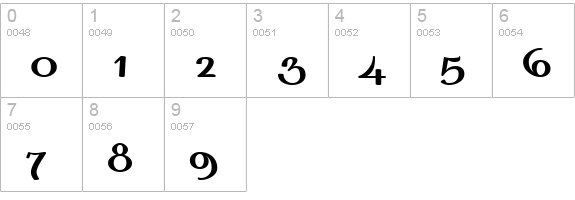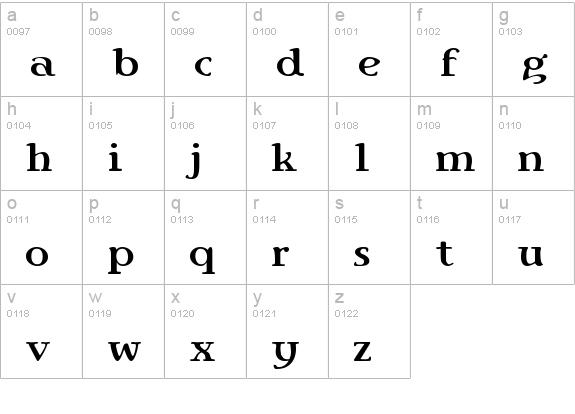
Ingriana Bold is a strong, high-contrast variant in the Ingriana typeface family \xE2\x80\x94 well suited to headlines, attention-grabbing titles, and strong calls-to-action.
Introducing Ingriana Bold, a stunning and sophisticated font that exudes timeless elegance and a touch of modernity. This font is perfect for adding a bold and impactful statement to your designs, whether it be a logo, branding materials, invitations, or any other creative project. With its clean lines and strong presence, Ingriana Bold commands attention and captivates the eye. Its thick and well-defined strokes give each letter a commanding presence, making it ideal for headlines and titles that need to make a lasting impression. What sets Ingriana Bold apart is not only its striking aesthetic appeal but also its versatility. It effortlessly adapts to various design styles, from classic to contemporary, making it a versatile choice for designers of all backgrounds. And the best part? Ingriana Bold is available to download for free at FontsMarket.com. Yes, that's right - this exceptional font can be yours without spending a penny. FontsMarket.com offers a vast collection of high-quality fonts, and Ingriana Bold is just one of the many amazing options available. So, whether you're a professional designer looking to add a touch of boldness to your next project or an enthusiast eager to explore the world of typography, Ingriana Bold is the perfect choice. Download it now, and let your creativity soar to new heights with this exceptional font.